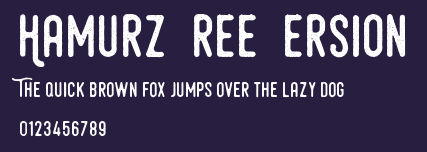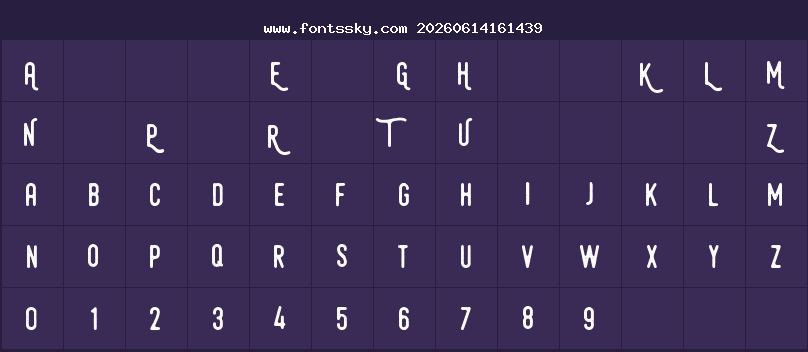
• Font Name: Hamurz Free Version
• Full Font Name: HamurzFreeVersion
• PostScript Name: HamurzFreeVersion
• Character Count: 52
Hamurz Free Version.otf is a modern, elegant sans-serif font designed for ultimate readability and visual harmony. Perfect for branding, headlines, web design, and print materials.